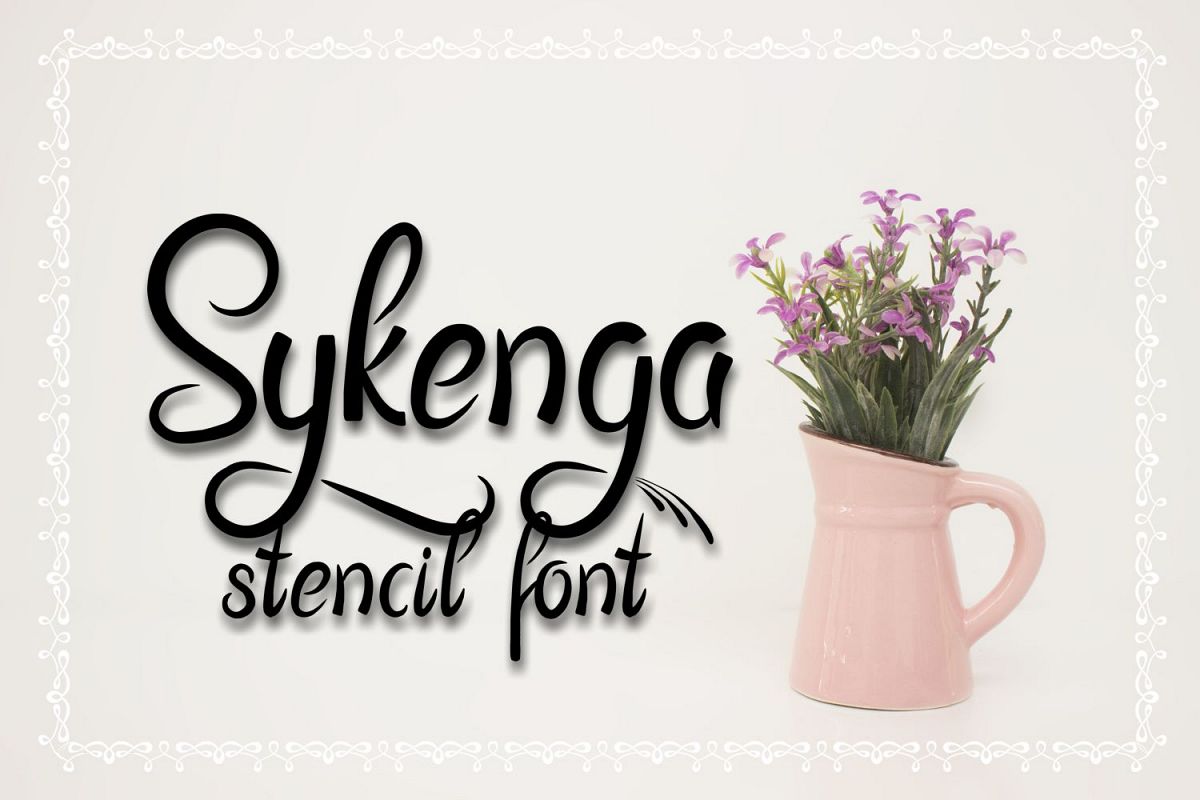
Sykenga Stencil Font
Sykenga
Sykenga is a stencil font without closed loops on the letters/numbers/flourishes.
Type ] or [ after letter g/j/y to get the curly swashes.
See example: sy]keng[a
Sykenga Stencil Font